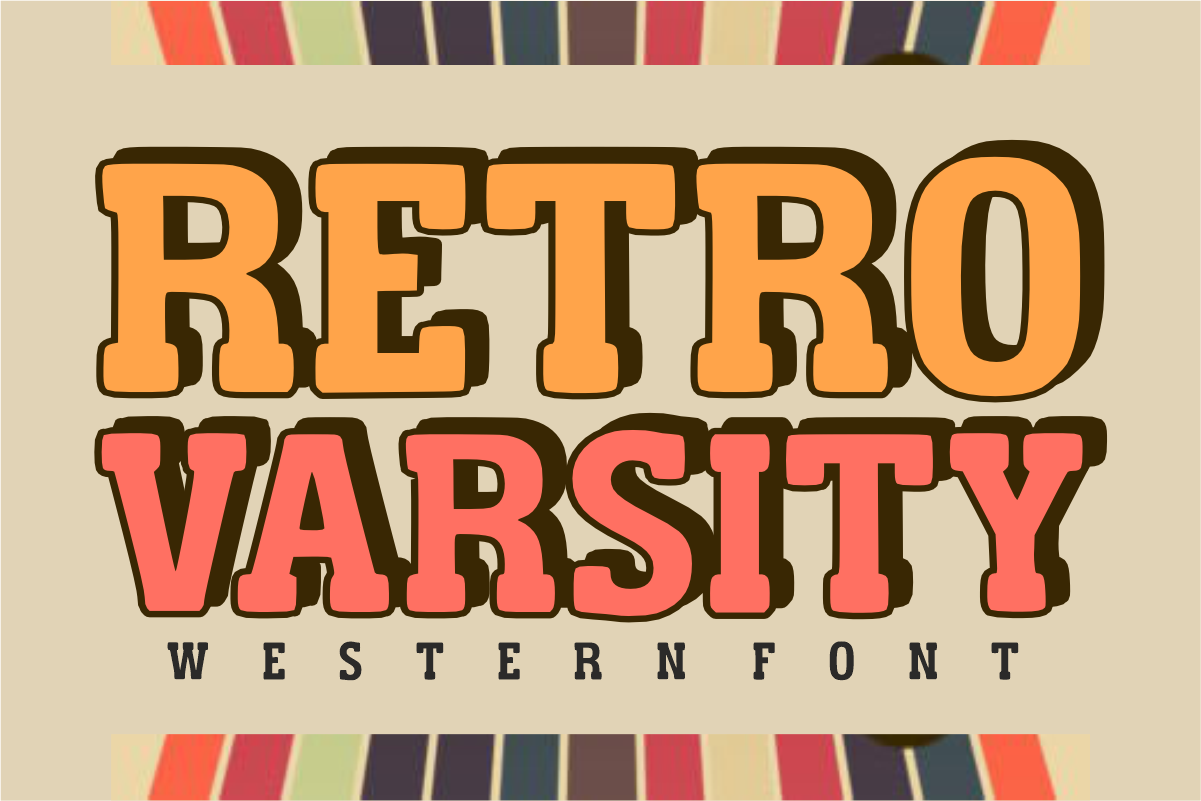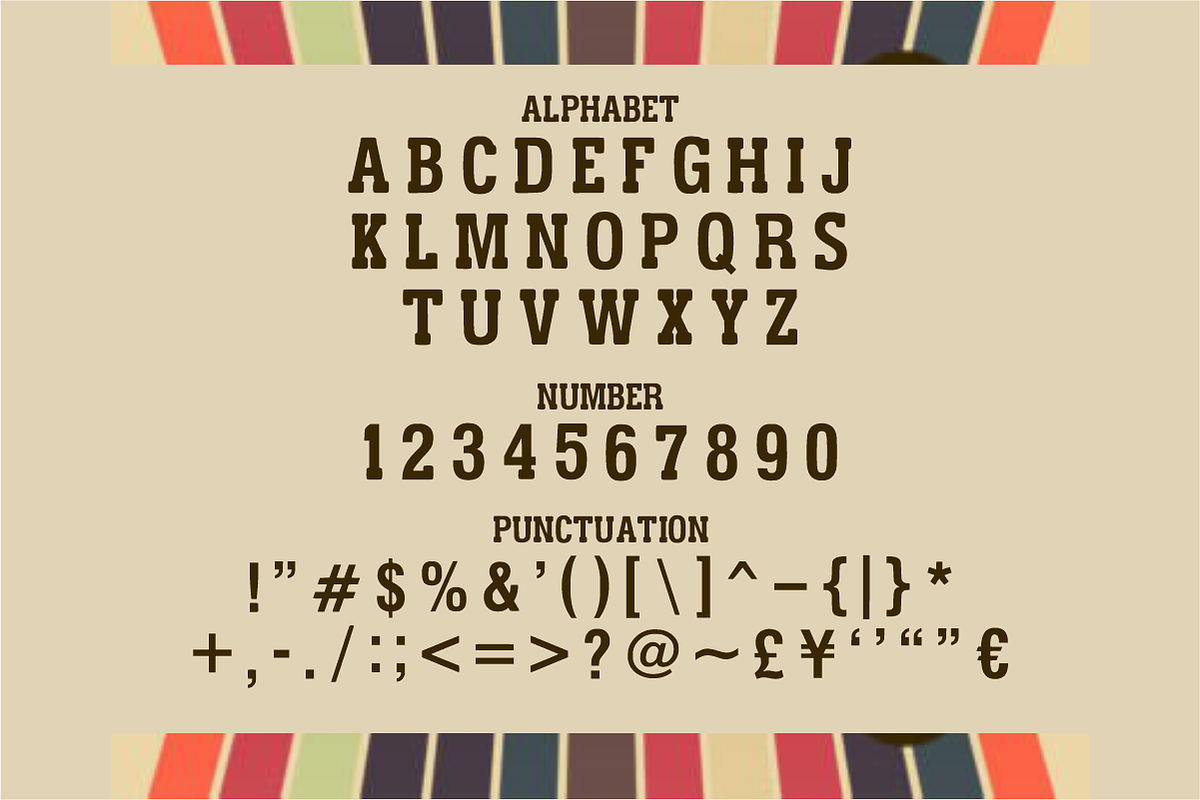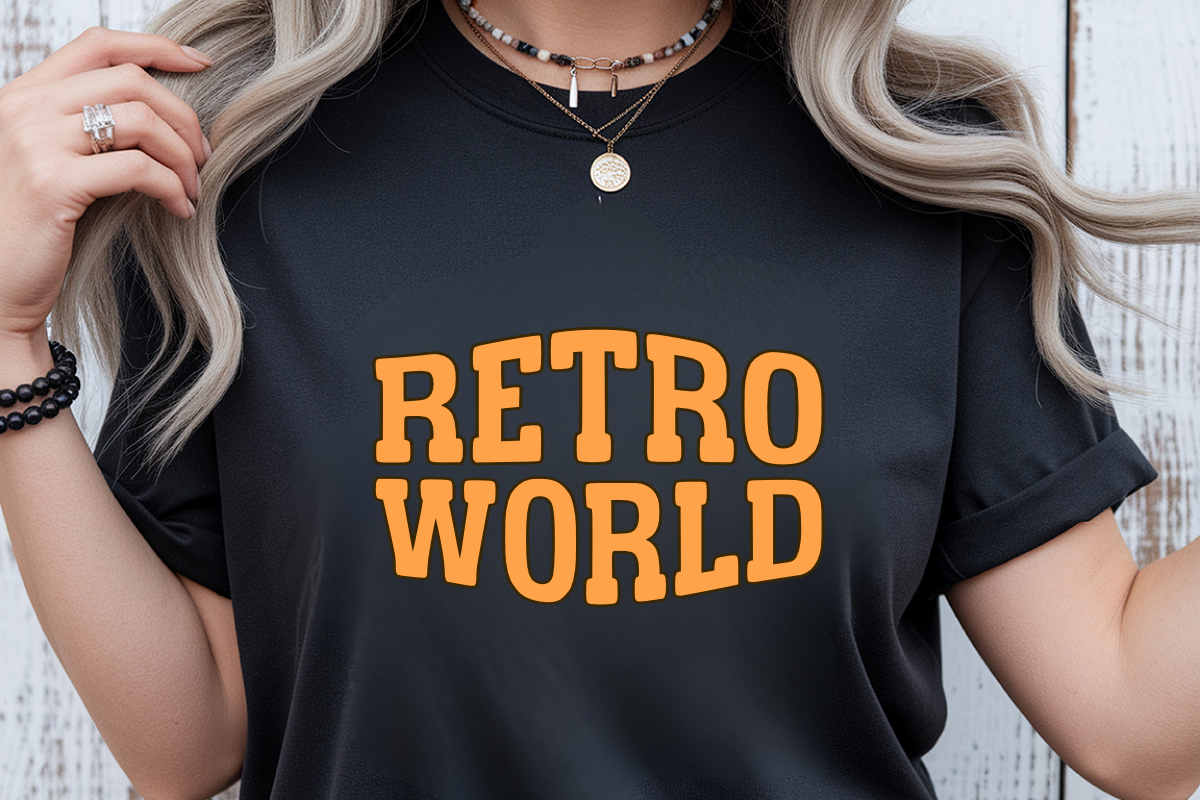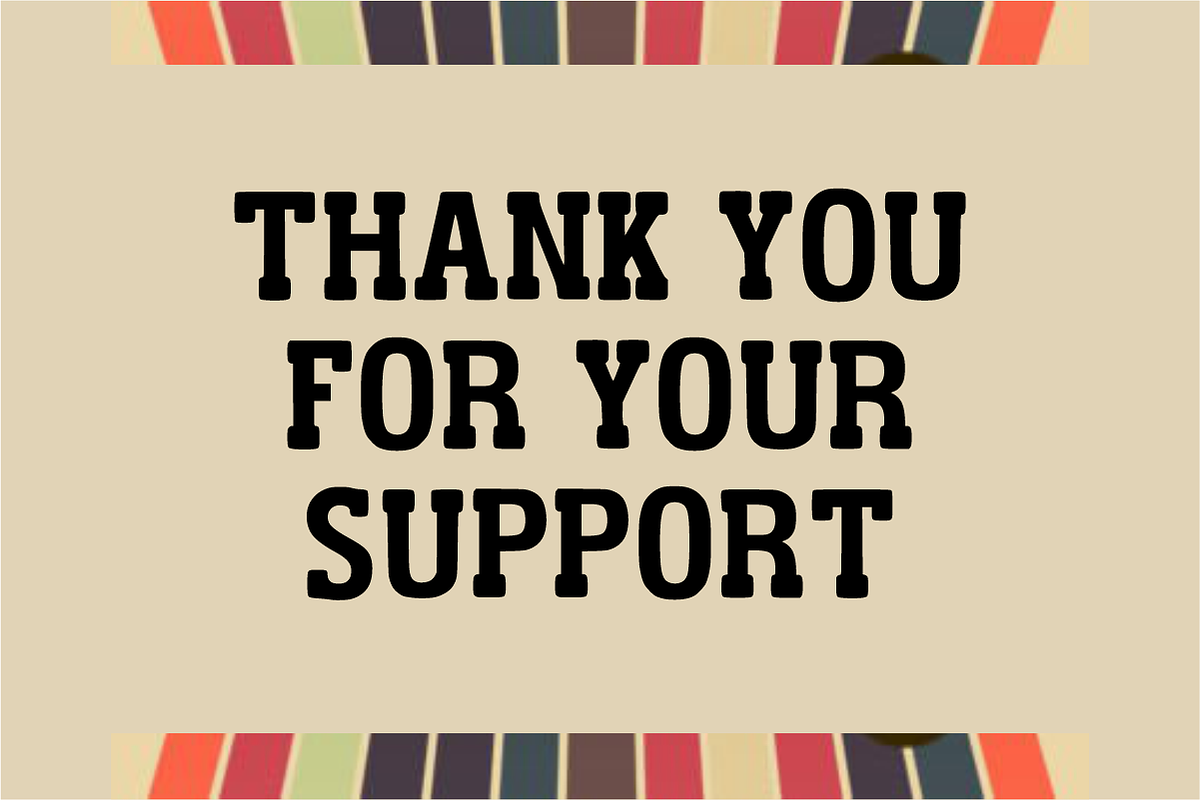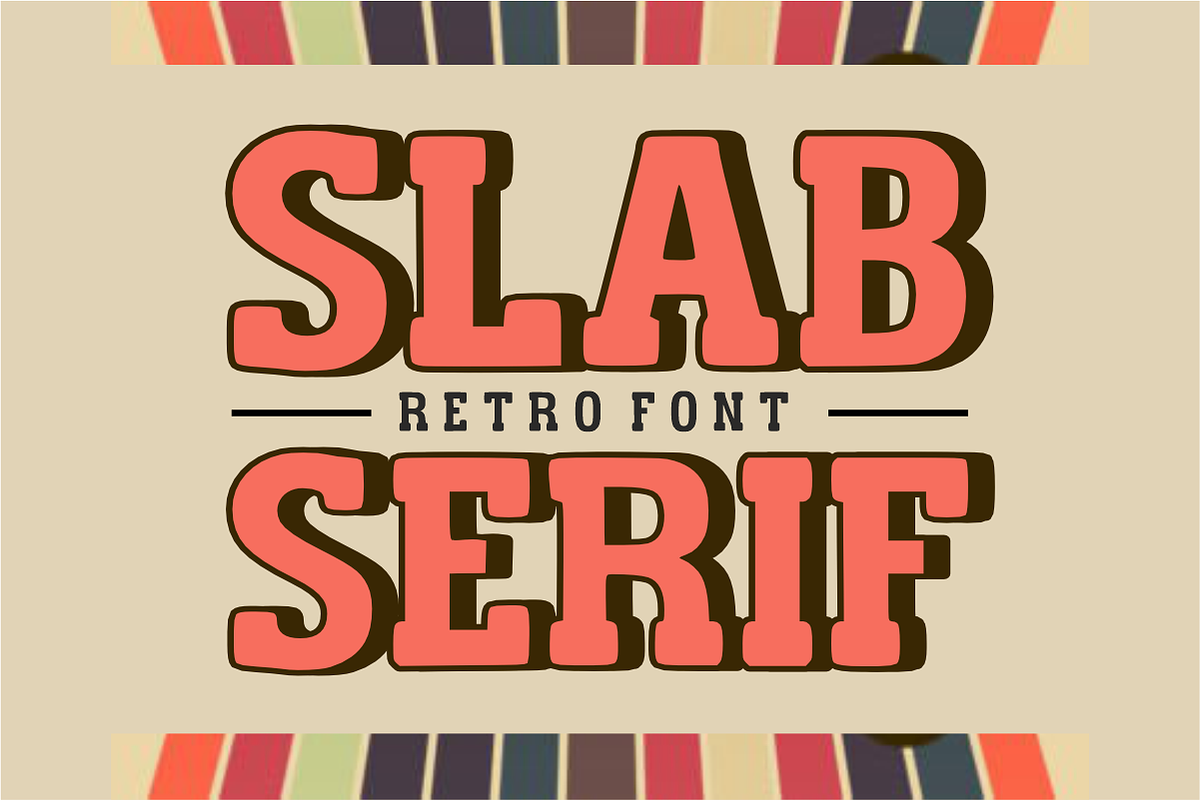
Retro Varsity - Campus Display Font
✌️ Hey Creative Pals! Meet Retro Varsity - The Ultimate Groovy Campus Display Font! 🏈
Get ready to serve pure nostalgic good vibes! Retro Varsity is a premium display font that beautifully brings together the sun-drenched, playful aesthetic of the 1970s with the iconic boldness of vintage collegiate lettering. Featuring thick, smooth block lines and a built-in solid 3D shadow effect, this font instantly adds depth and a premium retro feel to any layout.
If you're looking to craft trendy streetwear, high-spirited campus merch, or fun country-western lifestyle graphics, Retro Varsity is your go-to choice for making your text pop with effortless charm!
✨ What’s in the Playbook:
_ 🔠 _\Bold Uppercase Letters (A-Z)\\* – Smooth, chunky block characters with a striking retro dimensional shadow.
_ 🔢 _\Matching Numbers (0-9)\\* – Perfect for vintage sports jerseys, scoring, and timeless milestone dates.
_ 🔣 _\Simple Symbols & Punctuation\\* – Essential characters to easily finish your creative phrases.
🎯 Perfect For Your Next Best-Selling Project:
\* 👕 Groovy 70s T-Shirts, Cozy Hoodies & Vintage Streetwear Brands
\* 🎒 College & Varsity Apparel / Retro Campus Lifestyle Merch
\* 🤠 Modern Western, Rodeo, & Country-Themed Graphic Design
\* 🥤 Trendy Stickers, Tote Bags, High-Impact Posters, and Social Media Graphics